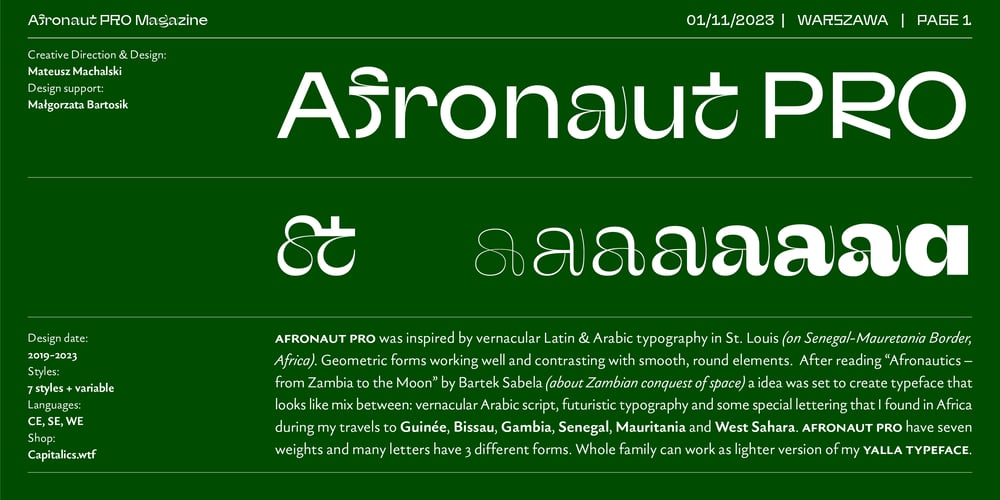
Afronaut PRO Font Family was designed by Mateusz Machalski and published by Machalski. Afronaut PRO contains 8 styles and family package options. Afronaut PRO (New version of typeface published in 2019) was inspired by vernacular Latin & Arabic typography in St. Louis (on Senegal-Mauretania Border, Africa). Geometric forms working well and contrasting with smooth, round elements. After reading “Afronautics – from Zambia to the Moon” by Bartek Sabela (about Zambian conquest of space) a breif was set to create typeface that looks like mix between: vernacular Arabic script, futuristic typography and some special lettering that I found in Africa during my travels to Guinée, Bissau, Gambia, Senegal, Mauritania and West Sahara. Afronaut has seven weights, also many letters have 3 different forms. Afronaut PRO can work as regular version of my Yalla Typeface.